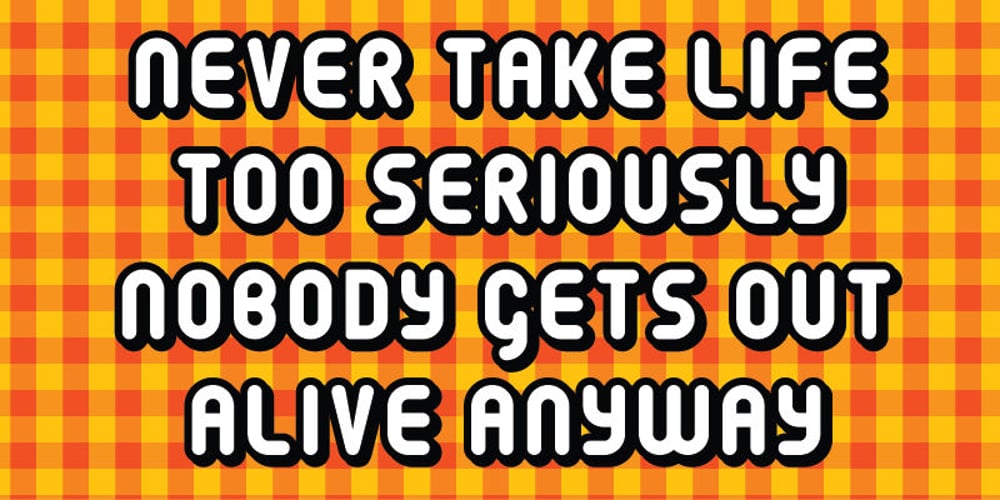
Retroxoid Font Family was designed by Jakob Fischer and published by PizzaDude.dk. Retroxoid contains 1 styles and family package options. You may recognize the looks of Retroxoid – if not, then let me help you out: Retroxoid is actually a font I made back in 2007. I ran prints of the font, through a very bad copymachine, used a wet cloth to make the print look worn, scanned the prints and voila! Retrozoid, my very first Open Type font, was born! Now in 2010, Retroxoid has risen from the past, and is ready to burst your designs with clean, round and futuristic shapes!